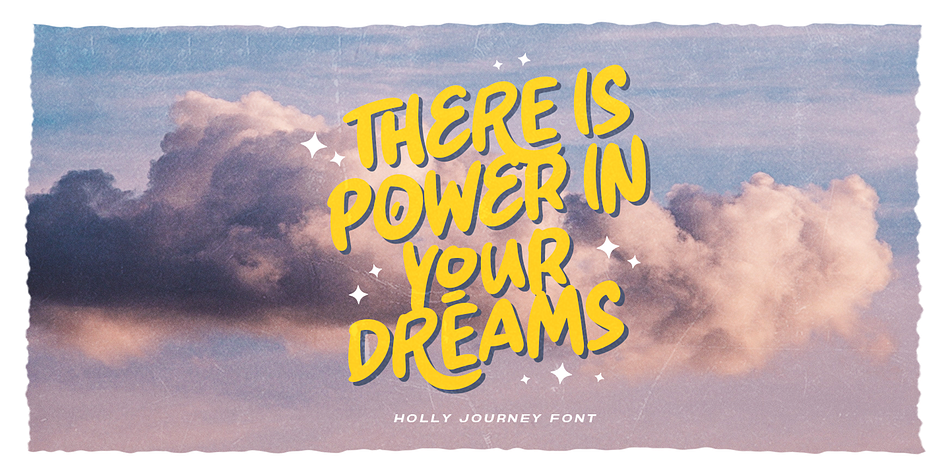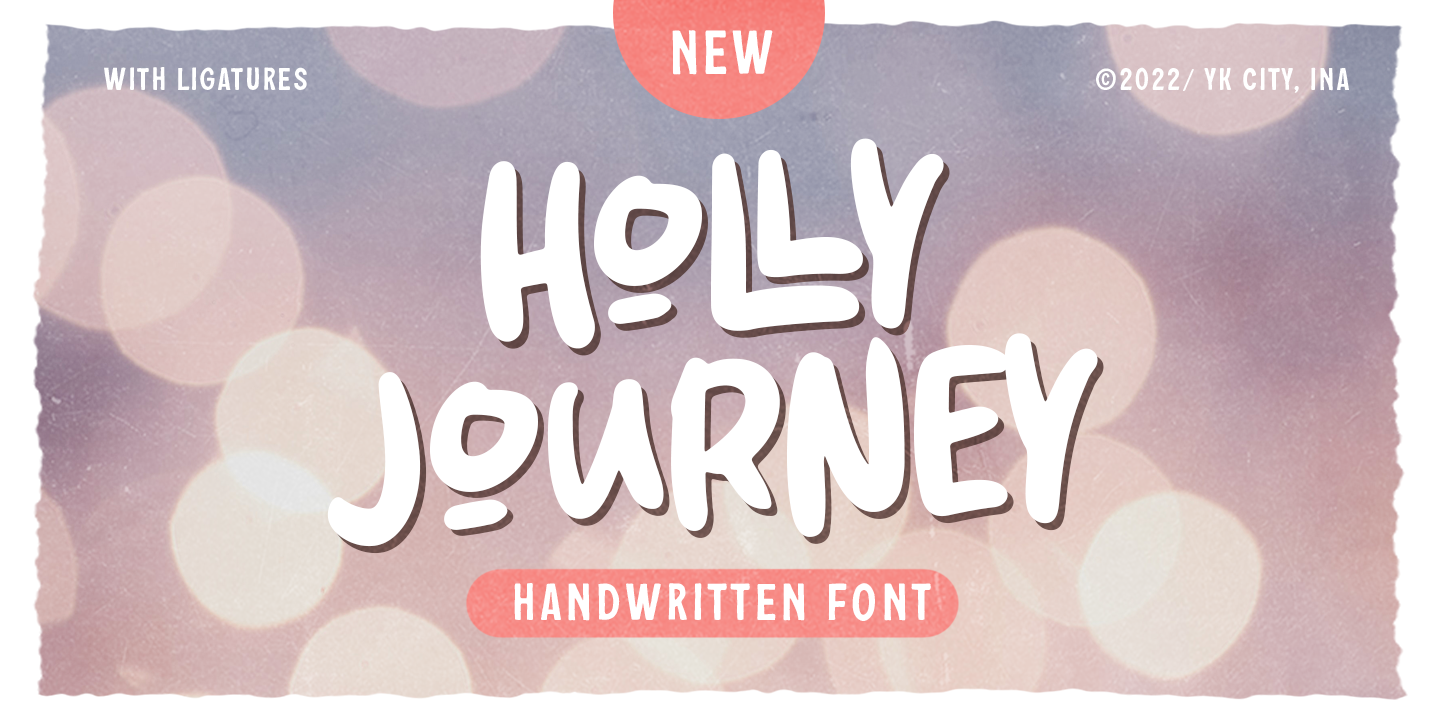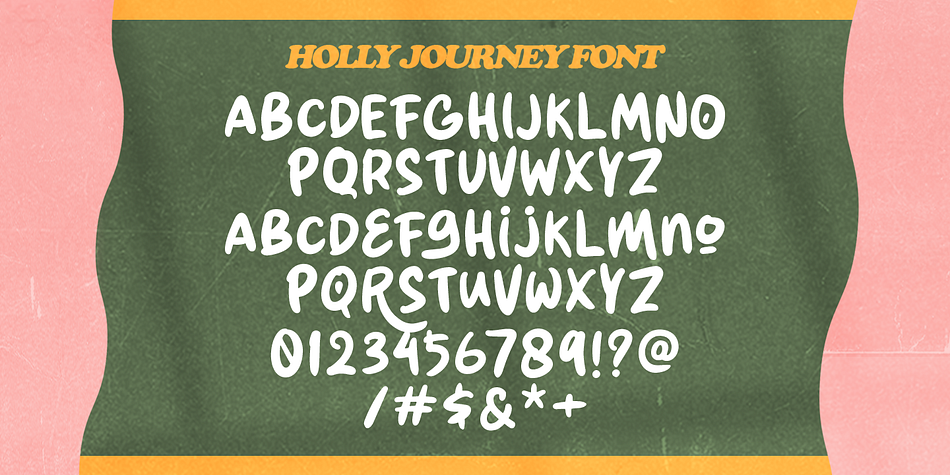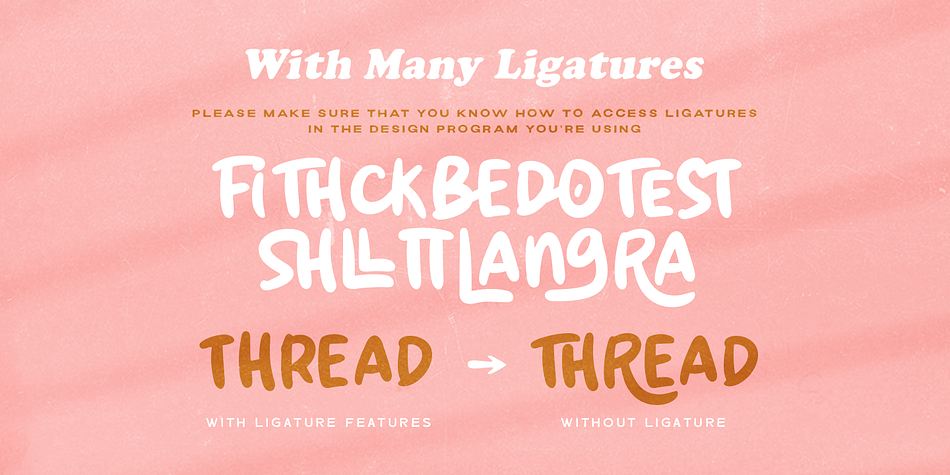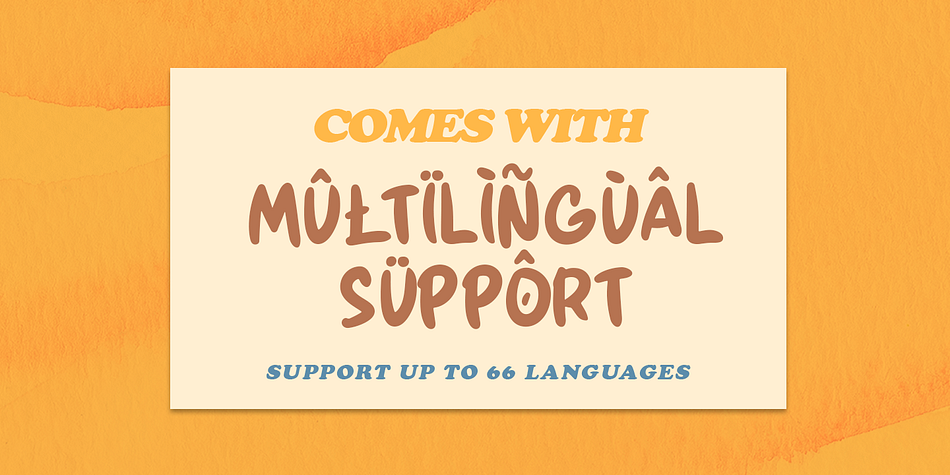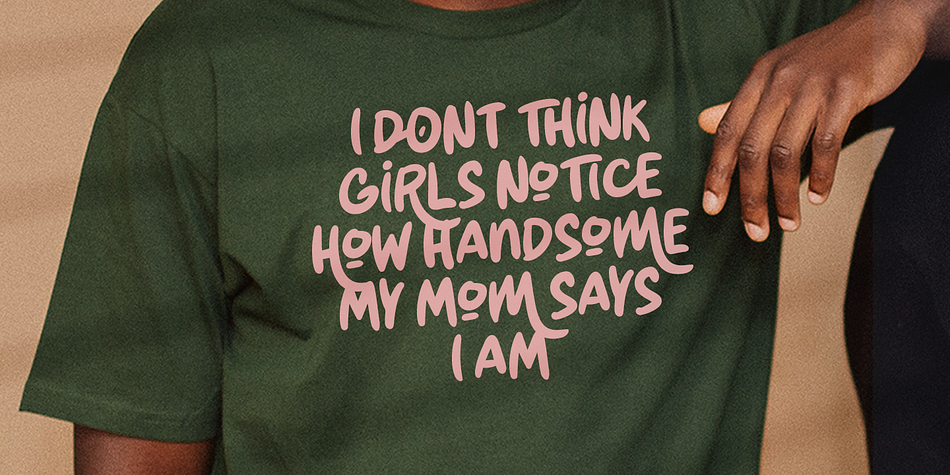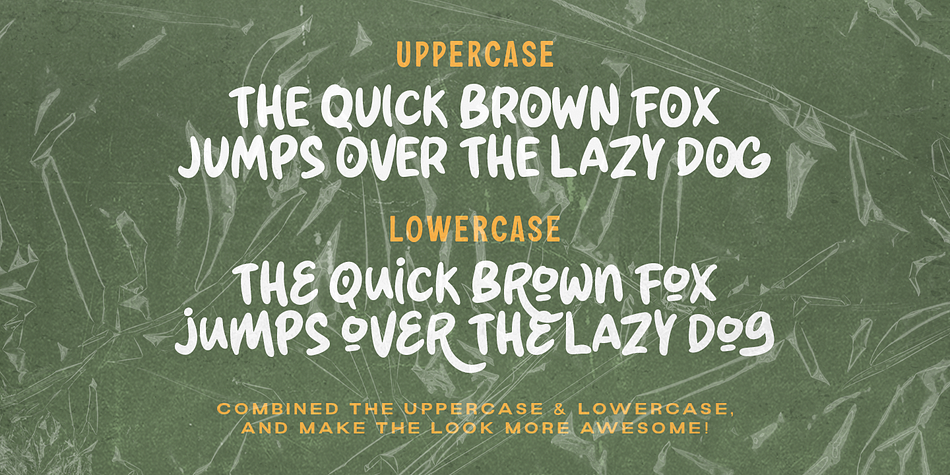
Designed by Hendry Juanda, Holly Journey is a brush display and hand display font family published by Letterhend Studio.
Holly Journey is a display handwritten font with many ligatures. The strokes make this font outstanding and looks great for title. A typeface with fun and playful looks that perfectly made to be applied especially in storybook children or child theme which is need a standout font, and the other various formal forms such as invitations, labels, logos, magazines, books, greeting / wedding cards, packaging, fashion, make up, stationery, novels, labels or any type of advertising purpose.
-numbers and punctuation
-multilingual
-alternates / swashes and ligatures